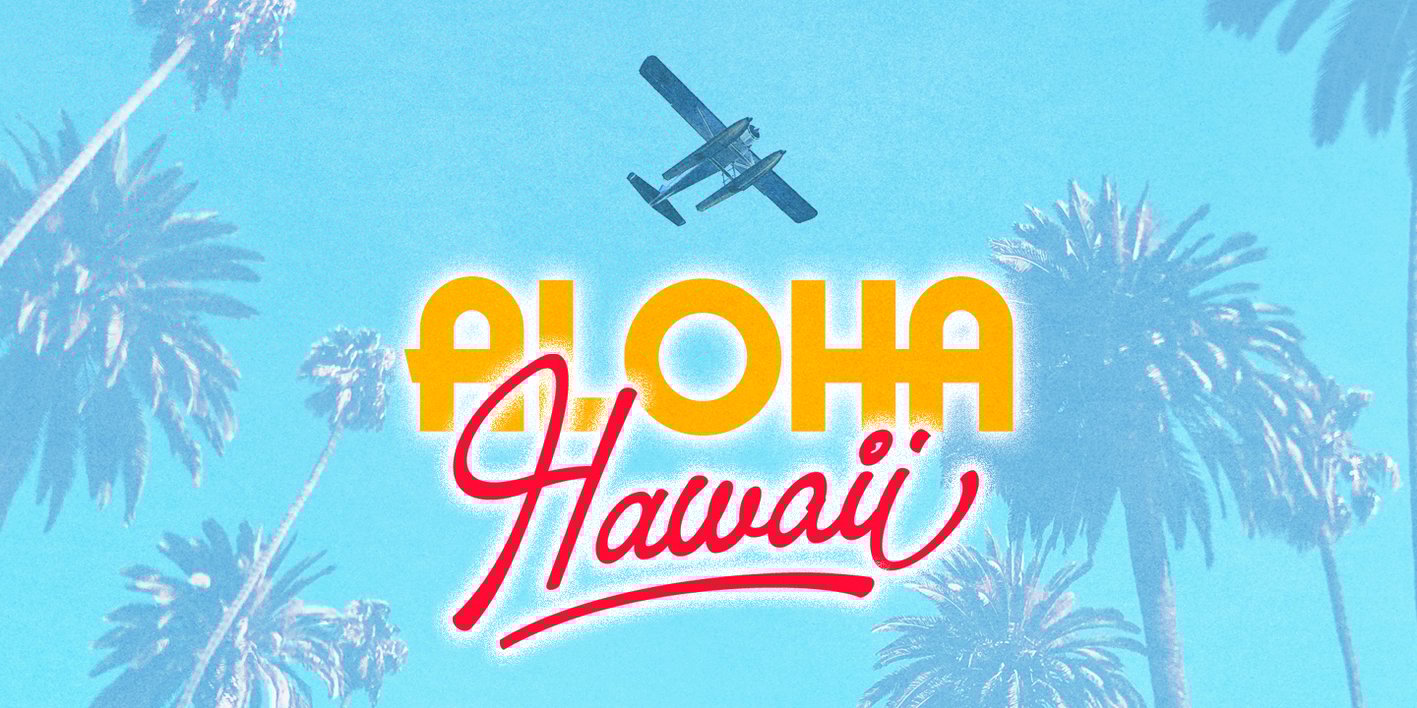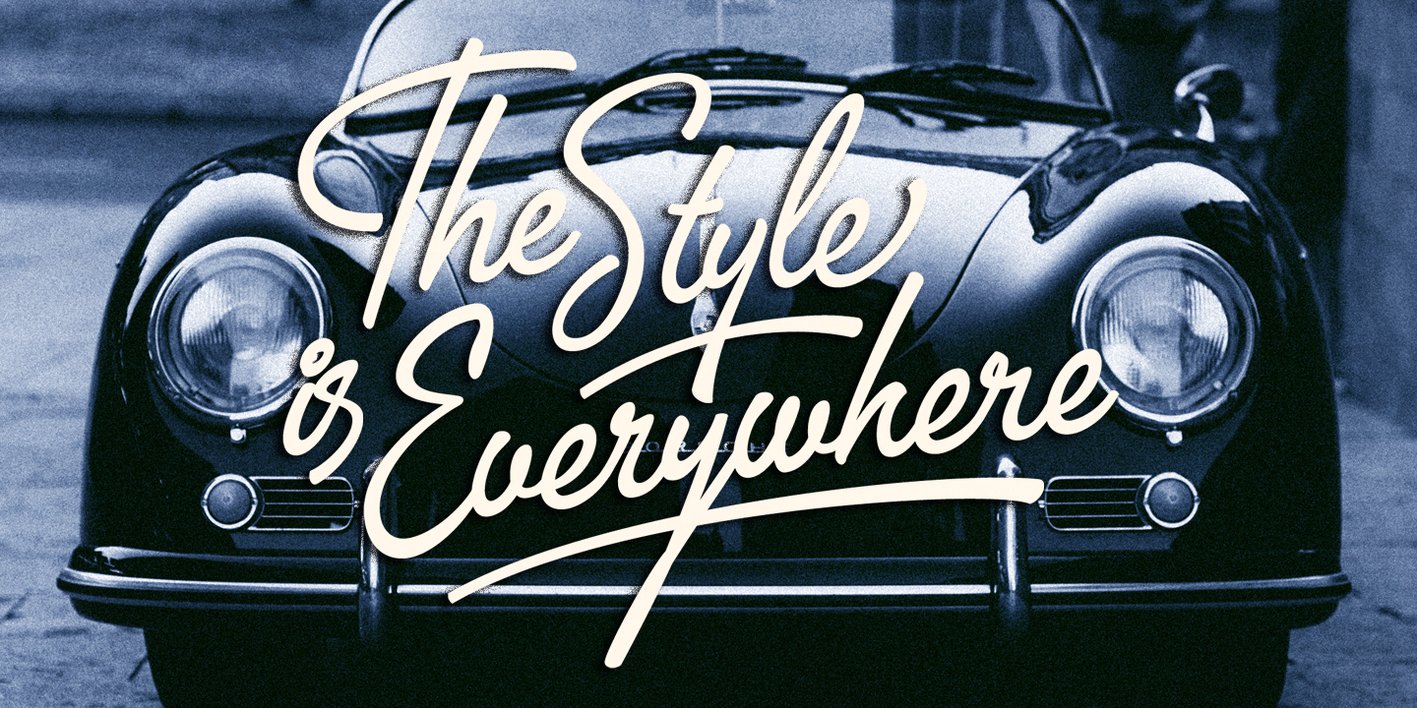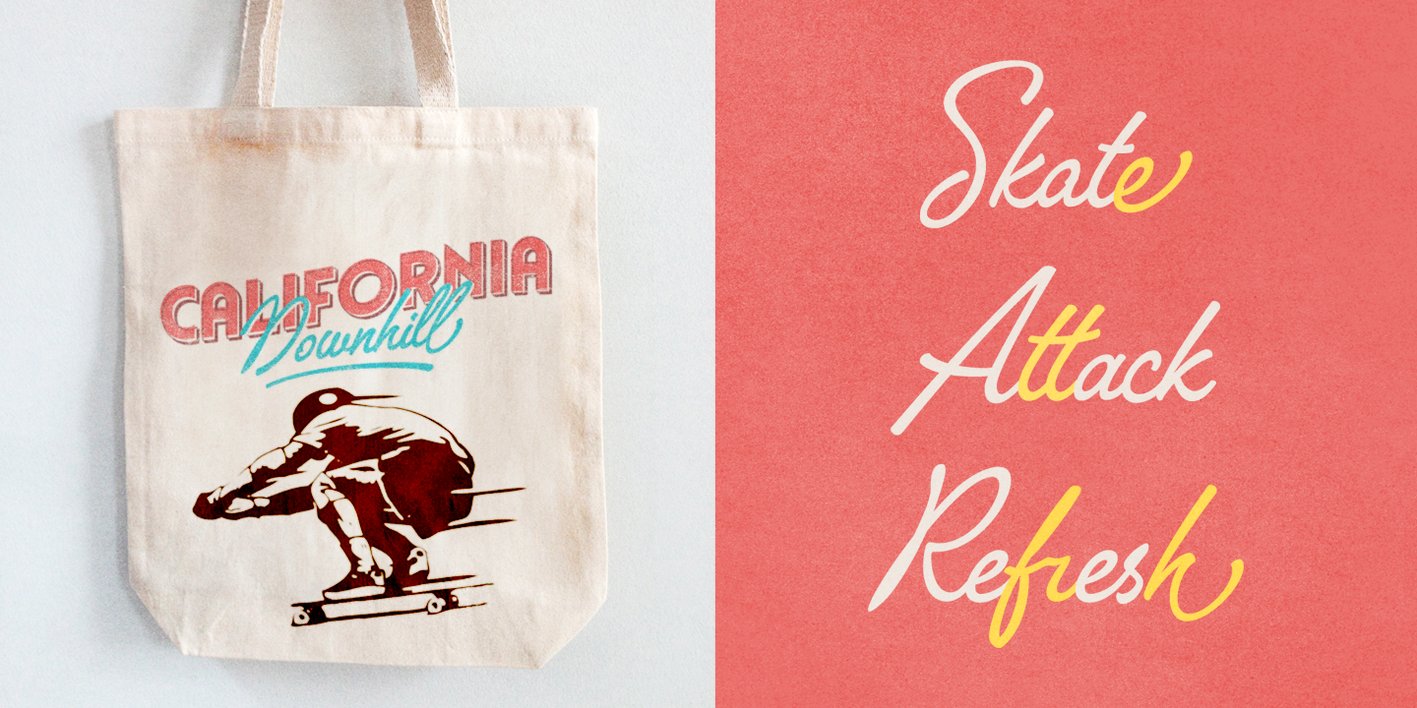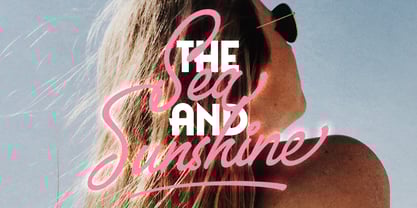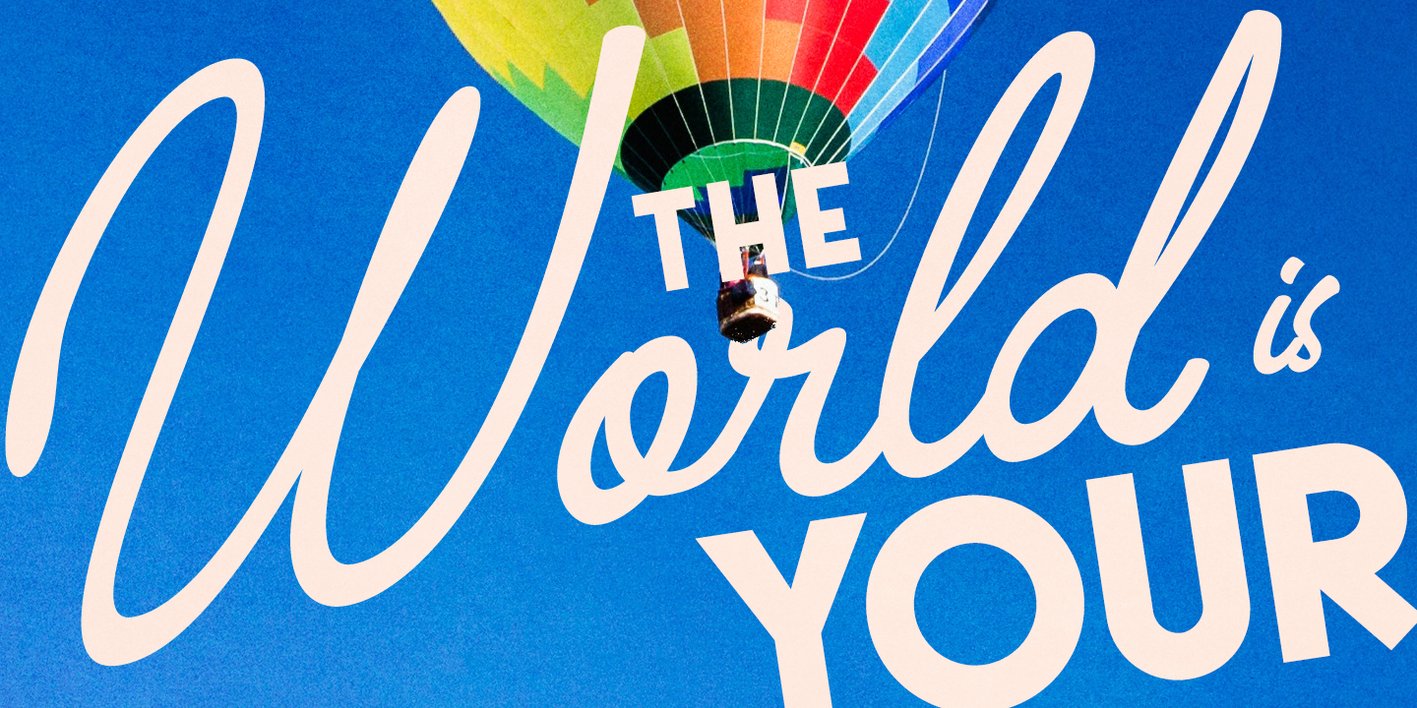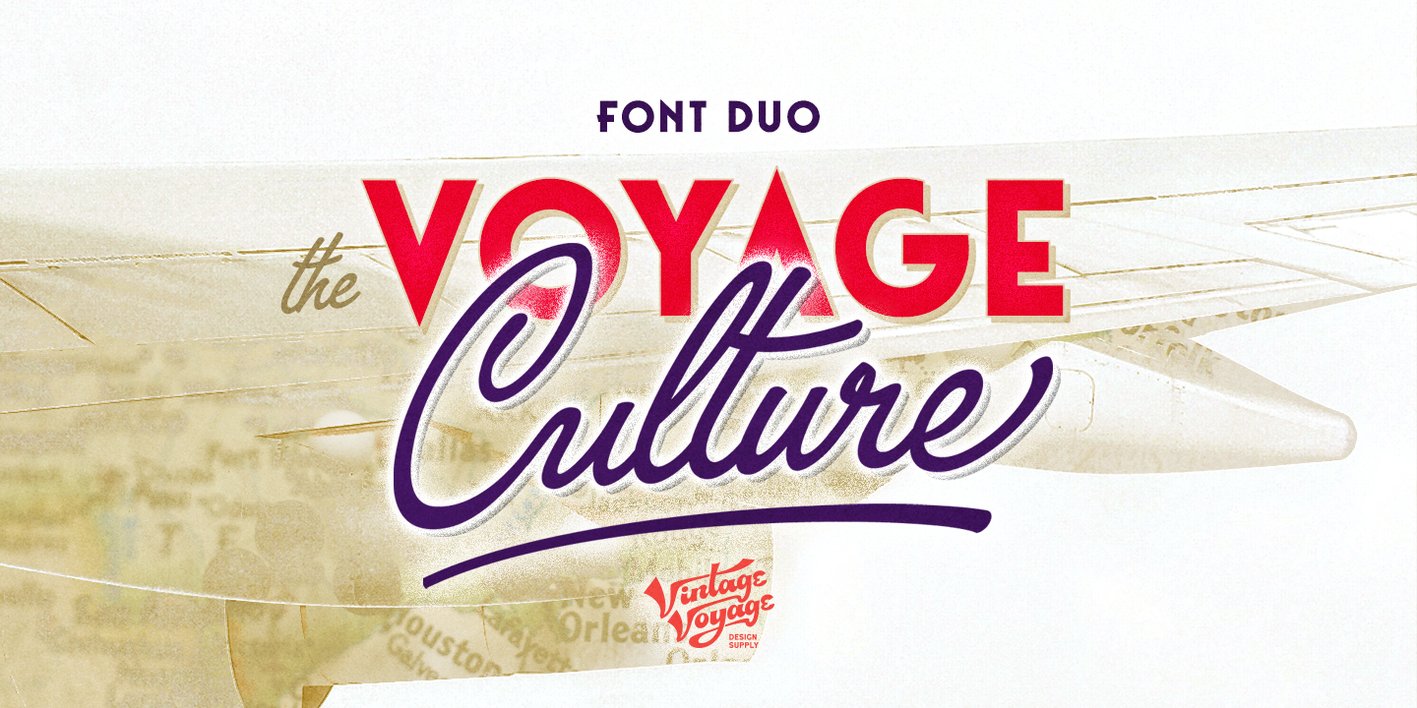
The Voyage Culture Font
Introduce you perfect font duo to give you many typographic variations for your project. It does not really matter, what the project is — t-shirts for sale or logo for your friends cafe, music poster or candy's package. These two lovely fonts would be perfect to combine in your design. Inspired by Travel Posters from Early 20th Century. A little bit art-deco massive sans with some playful characters like A, C, G, M, R, S, V, W and Handwritten retro style brush script.